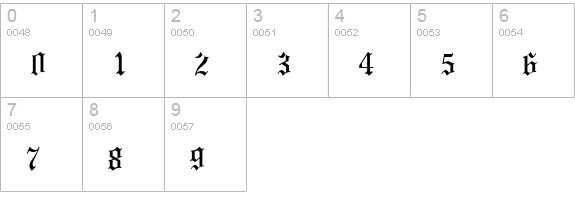
QTLinoscroll Regular Font Details
QTLinoscroll Regular is the standard, neutral variant in the QTLinoscroll typeface family \xE2\x80\x94 well suited to general body text, paragraphs, and standard typographic work.
QTLinoscroll Regular font is a captivating and versatile typeface that effortlessly blends elegance and modernity. With its unique and intricate linework, this font will add a touch of sophistication to any design project. The graceful curves and precise details of QTLinoscroll Regular make it ideal for various creative endeavors, including branding, logo design, packaging, and editorial layouts. Its clean and legible characters ensure readability across different mediums, making it a reliable choice for both print and digital applications. One of the standout features of QTLinoscroll Regular is its versatility. Whether you're aiming for a refined and classic look or a bold and contemporary aesthetic, this font has the flexibility to adapt and enhance your vision. Its timeless appeal allows it to seamlessly integrate into a wide range of design styles, giving your projects a distinctive and professional edge. And the best part? QTLinoscroll Regular is available for free download at FontsMarket.com. Yes, you read that right - this exceptional font can be yours, without any cost. FontsMarket.com is a trusted source for high-quality fonts, and with just a few clicks, you can access QTLinoscroll Regular and start incorporating its beauty into your projects. So why wait? Embrace the elegance and versatility of QTLinoscroll Regular font and elevate your designs to new heights. Download it for free at FontsMarket.com and unlock a world of creative possibilities.